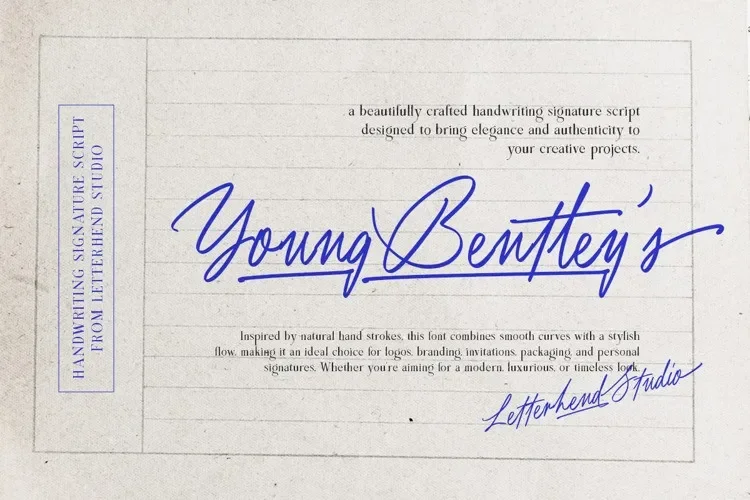
Young Bentley Font addresses the challenge of adding a handwritten feel to designs while keeping text readable and controlled. Designers often use signature-style fonts for personal branding elements.
Young Bentley Font is a handwritten script font with flowing strokes, natural curves, and slight variation in letterforms. The design mimics casual handwriting without heavy swashes, helping short text remain legible.